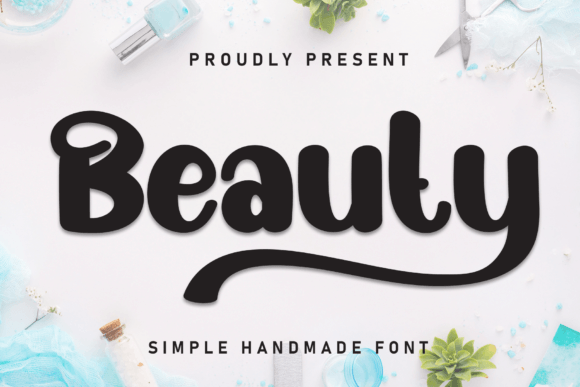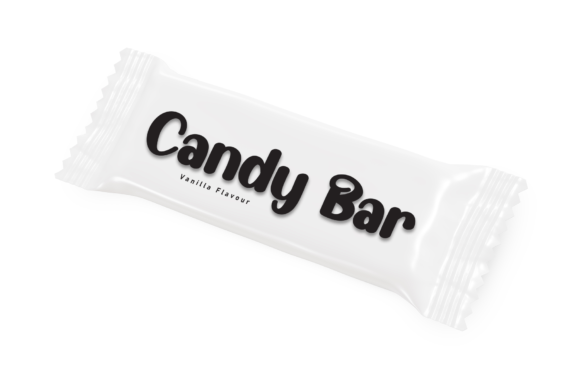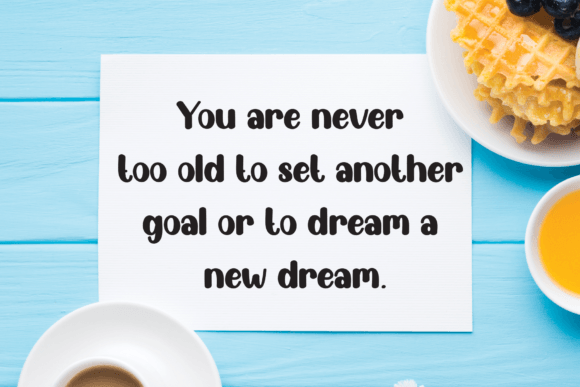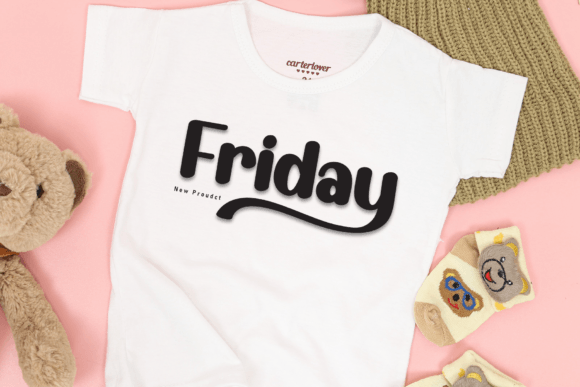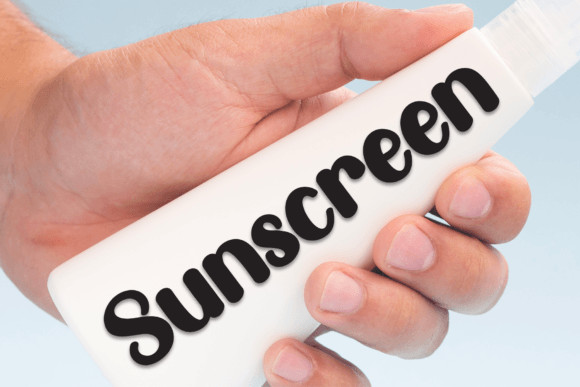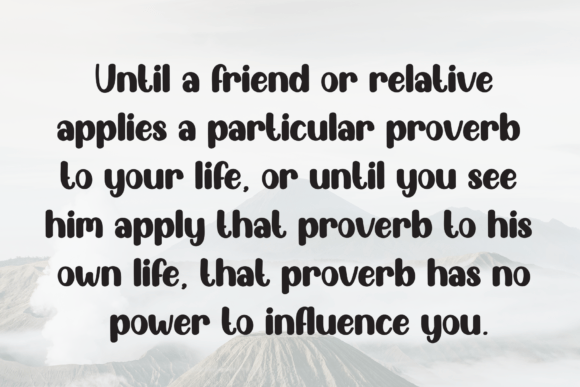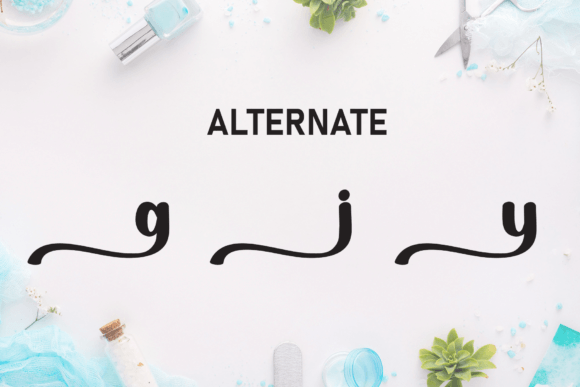
Unleashing the Magic of Handwritten Style
As a designer, have you ever found yourself staring at a blank page, searching for the perfect font to bring your creative vision to life? You know, that moment when everything falls into place, and your imagination runs wild? For many of us, it’s the moment when we discover a font that perfectly captures the essence of our design.
Enter Beauty Font, a delightful handwritten font that’s as charming as it is versatile. This lovable font is designed to add a touch of warmth and personality to your designs, making it perfect for wedding invitations, greeting cards, and any other project that needs a dash of whimsy. With its friendly feel and playful flair, Beauty Font is a valuable addition to any designer’s toolkit, offering endless possibilities for creative expression.
Beauty Font Key Features
- Unique Characteristics: The font features a unique blend of modern and elegant styles, with subtle flair and refined details, making it suitable for high-end branding and luxury designs.
Beauty Font Review
Overall, I’d say Beauty Font is a solid choice for a font, but it’s not without its flaws. ✨ One thing I really like about it is its unique and elegant aesthetic. The curves and lines are well-designed and make for a visually appealing read. ✨ The font also comes in a variety of weights, which is great for designers who want to add some depth to their projects.
Another thing I appreciate is the font’s versatility. ✨ It works well in both digital and print applications, and it’s suitable for a range of industries, from fashion to beauty to luxury.
That being said, there are a few things that hold Beauty Font back. ⚠️ For one, it’s not the most readable font at smaller sizes. If you’re planning to use it in a situation where text will be displayed at a small size, you may want to consider a different option. ⚠️ Additionally, the font can feel a bit too ornate for some projects. If you’re going for a more minimalist look, Beauty Font may not be the best choice.
Recommendation
- Use Beauty Font for projects where you want to add a touch of elegance and sophistication.
- Avoid using Beauty Font at small font sizes.
- Consider a different font if you’re going for a minimalist look.
The Beauty Font is ideal for:
- Special occasion cards and gifts
- Any design project where a touch of elegance is needed